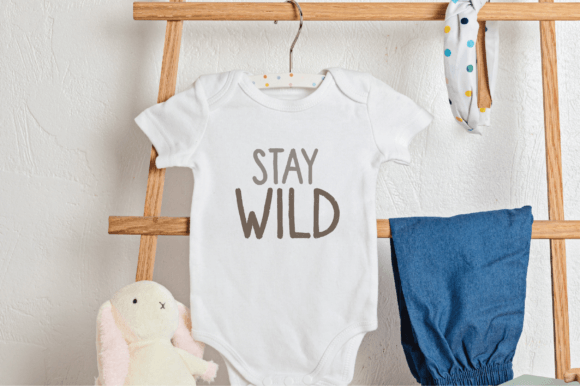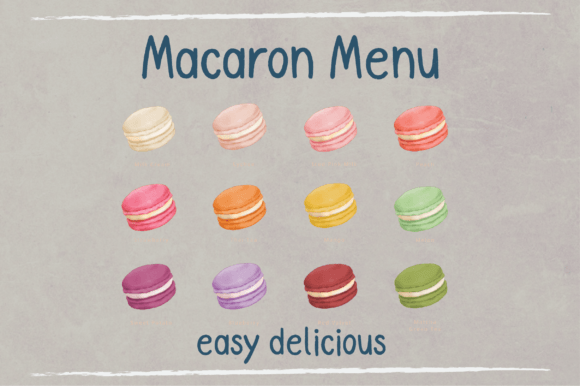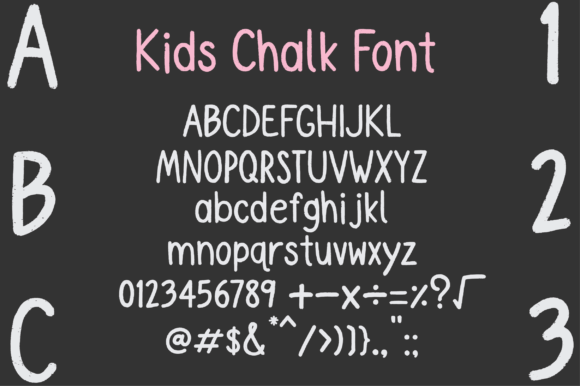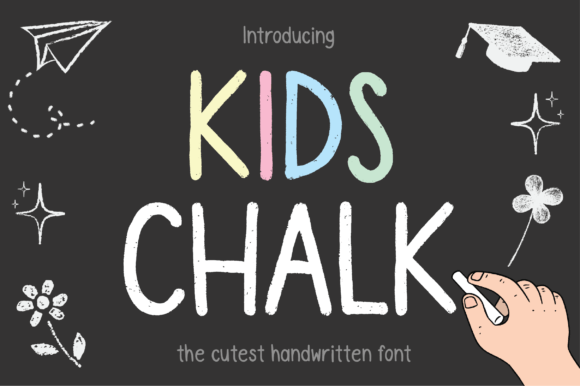
Introduction to Kids Chalk Font
Kids Chalk is a fun and playful font.
It’s perfect for teacher and children use like a handwritten Full of creativity to create menu, worksheet, card or anything.